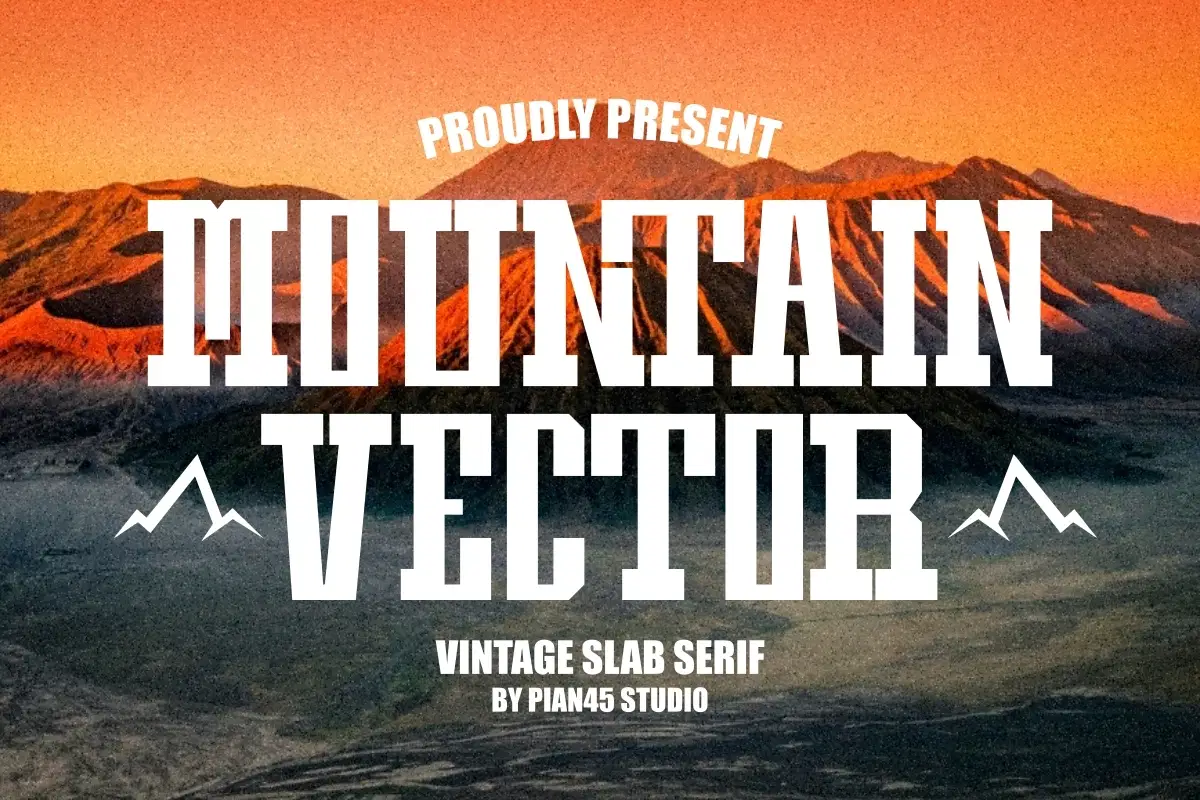
For outdoor and adventure branding, typography needs to feel rugged and reliable. Introducing MOUNTAIN VECTOR, a powerful Vintage Slab Serif font that perfectly captures a classic, robust aesthetic. This typeface is essential for designers and brands creating outdoor apparel, classic signage, and distinguished product packaging. Its bold, condensed structure ensures high visibility and strong brand recall in the adventure niche.